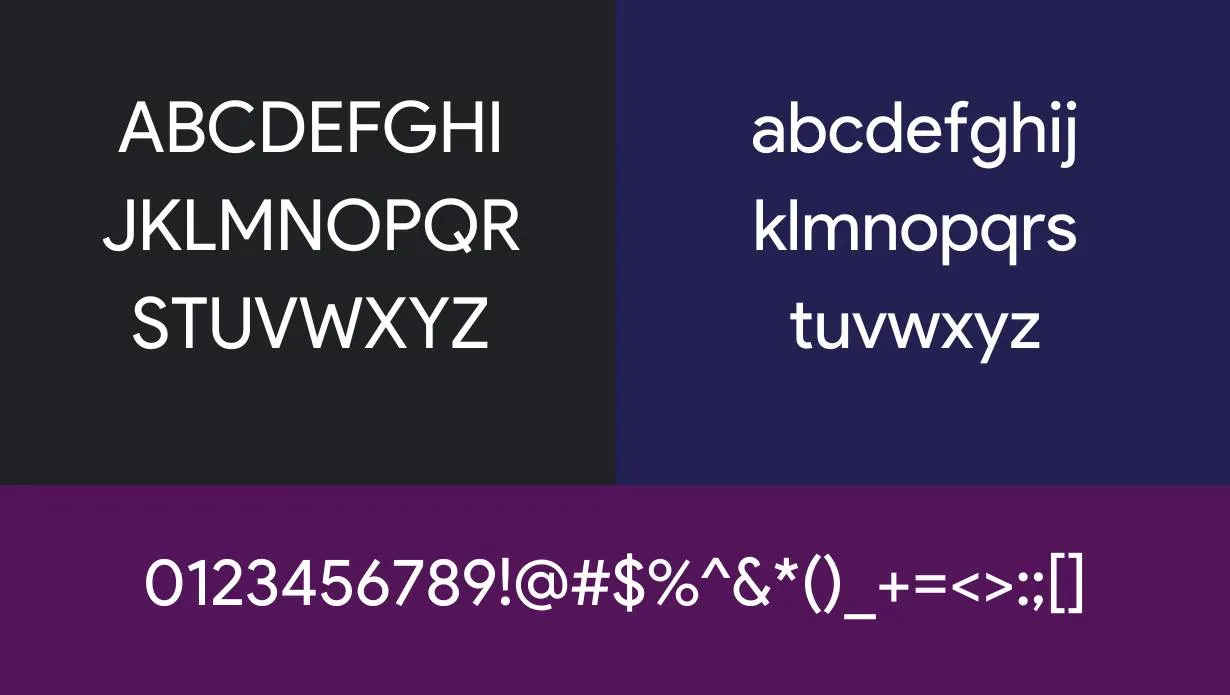
About Google Sans Font
Google Sans is the proprietary brand typeface developed by Google, evolving from the popular open-source font Product Sans. It is a geometric sans-serif characterized by its clean, circular forms, a large x-height, and subtle optical corrections that give it a warm, approachable, and highly legible quality. Designed to function across an immense scale—from the tiny UI of a smartwatch to global marketing campaigns—it is the visual voice unifying Android, Google Search, Gmail, and all consumer-facing Google products. Its design balances technical neutrality with a distinctively friendly and human feel.